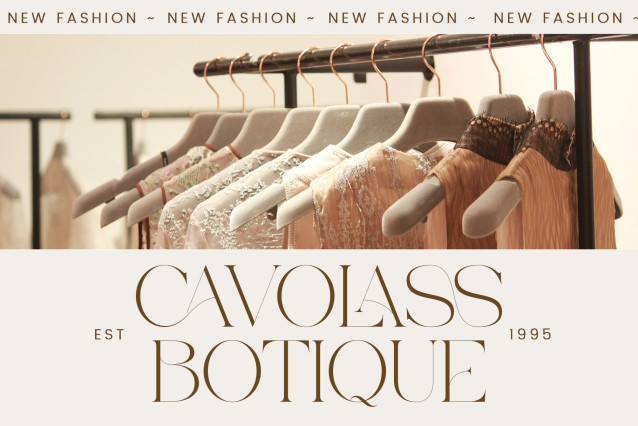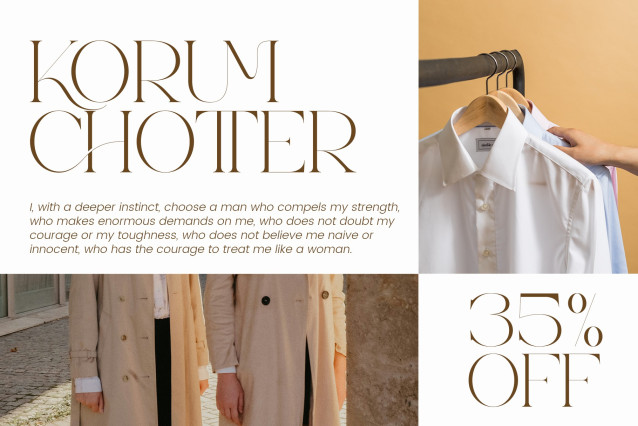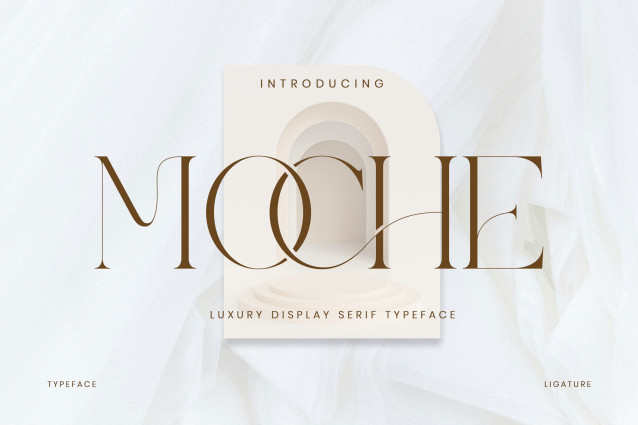
Moche – Luxury Display Serif Font
Moche Stylish Ligature Typeface, inspired by the famous minimalist logo perfect for the purposes of designing templates, brochures, videos, advertising branding, logos and more.